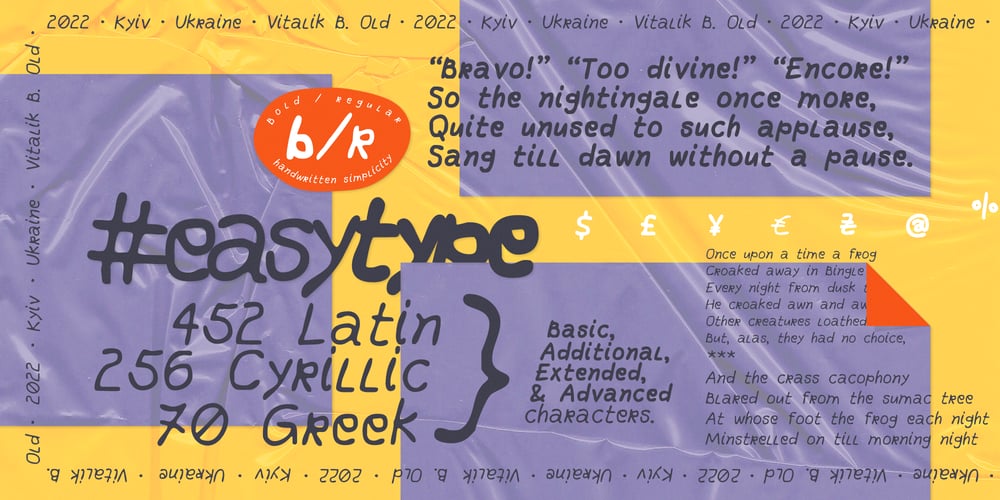
Easytype Font Family was designed by Your Yourich and published by Vitalik B. Old. Easytype contains 2 styles and family package options. Easytype is the first font family released by Vitalik B. Old. Yet simple, handwritten type feels in title as good as in a middle size paragraph. Both italic and italic bold styles got 999 characters in a set, including Latin, Cyrillic and Greek symbols. Full set of Basic, Additional, Extended and Advanced Latin symbols [452]; Full set of Basic and Extended characters in Cyrillic script [256]; Basic Greek character set [73] Font family was designed by y/ybehance.net/youryourich